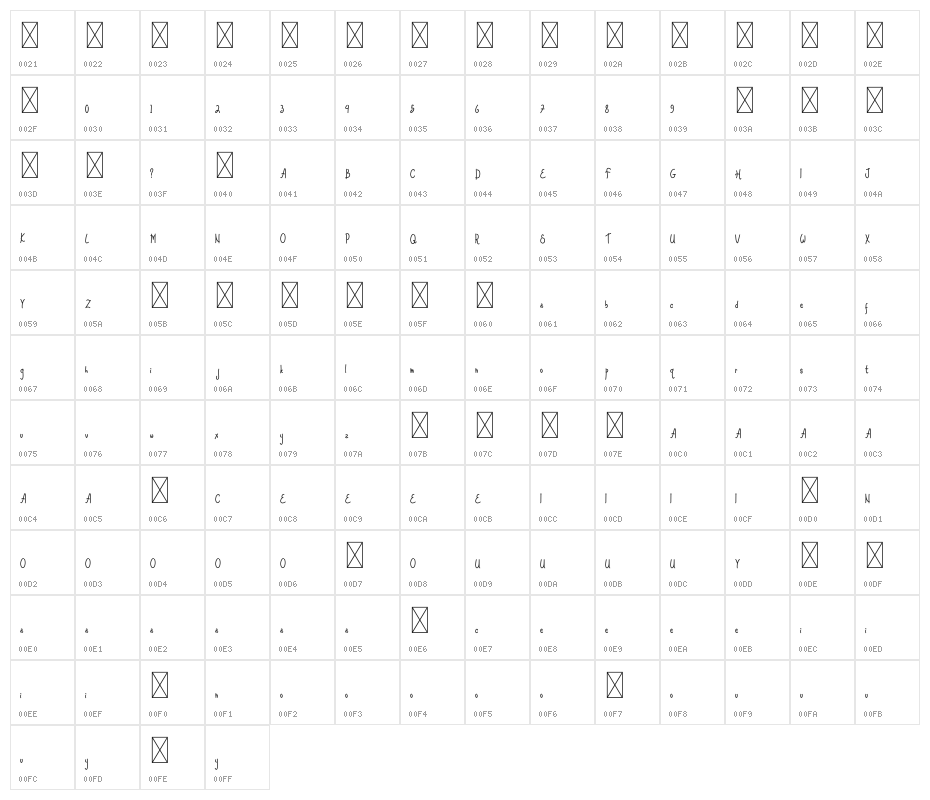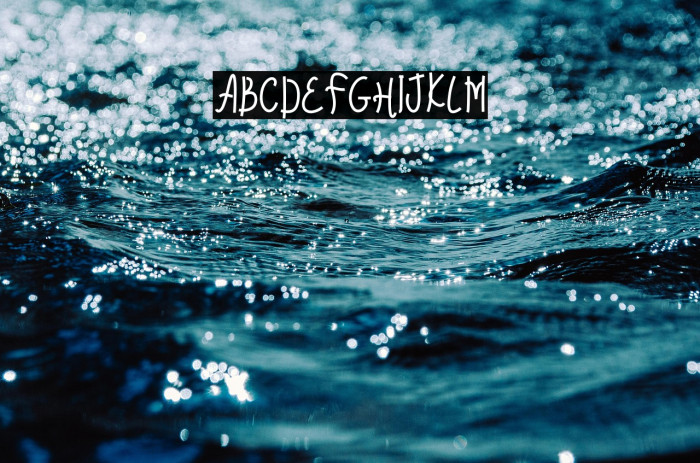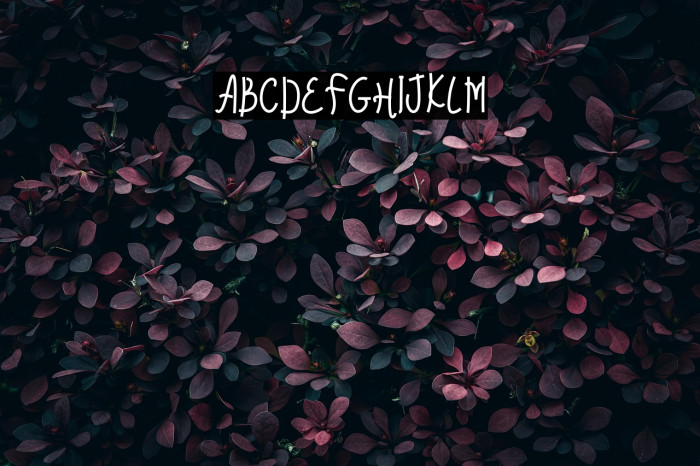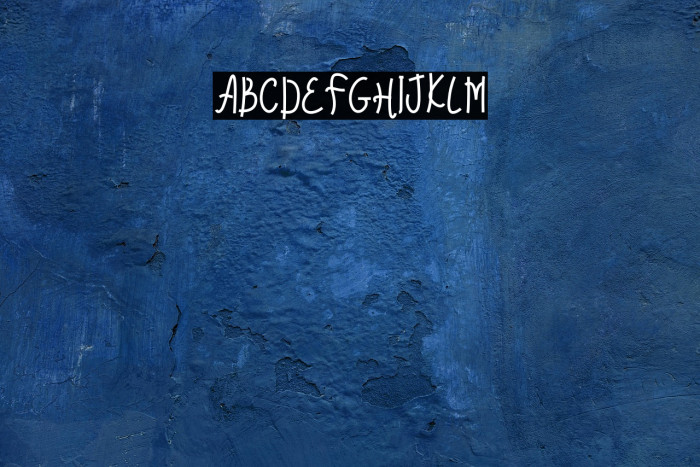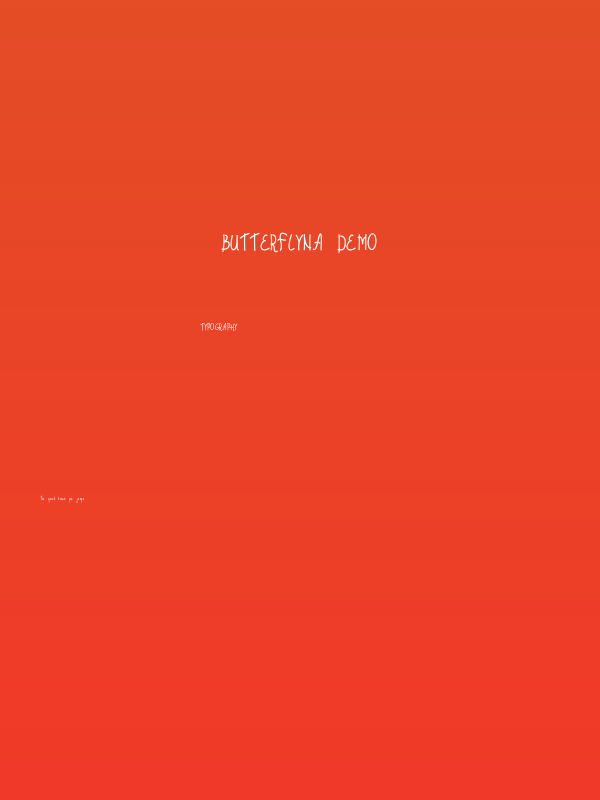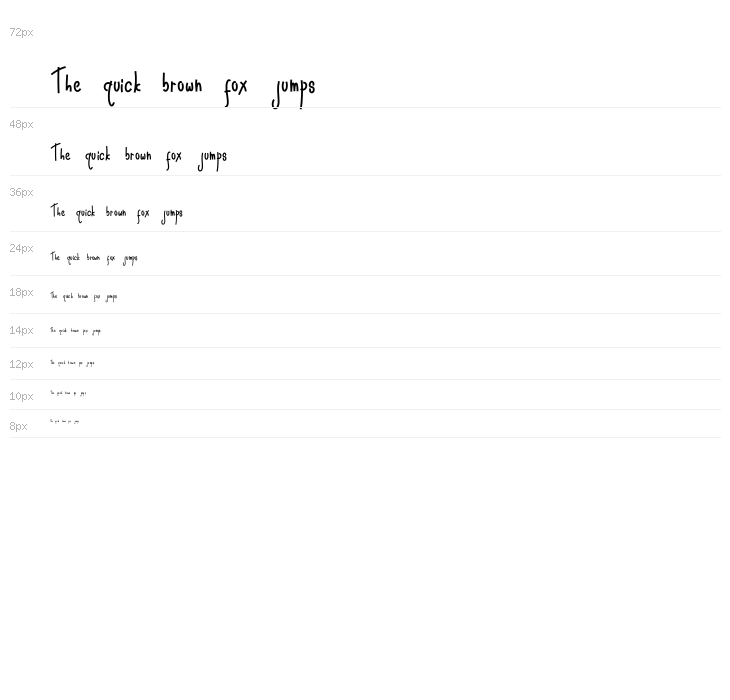
Butterflyna Demo Font
Butterflyna Demo Description
This font features a whimsical and playful design, characterized by its handwritten style with a touch of elegance. The letters are slightly elongated with a consistent stroke width, giving it a unique and artistic flair. The uppercase letters maintain a uniform height, while the lowercase letters exhibit a charming irregularity, adding to its casual and friendly appearance. The numerals are clear and easy to read, matching the overall style of the alphabet. Special characters are included, maintaining the same playful aesthetic. This font is perfect for projects that require a personal and creative touch.
| Proposed Projects | Ideal for greeting cards, invitations, children's books, and creative branding. |